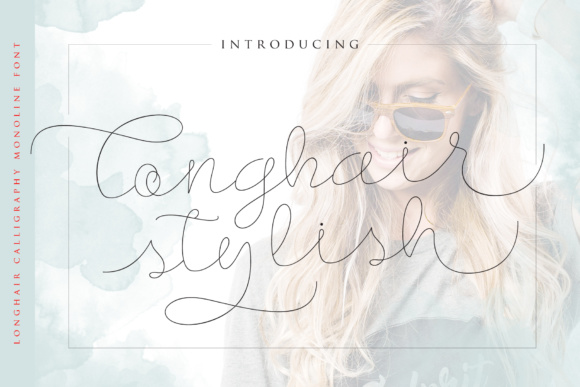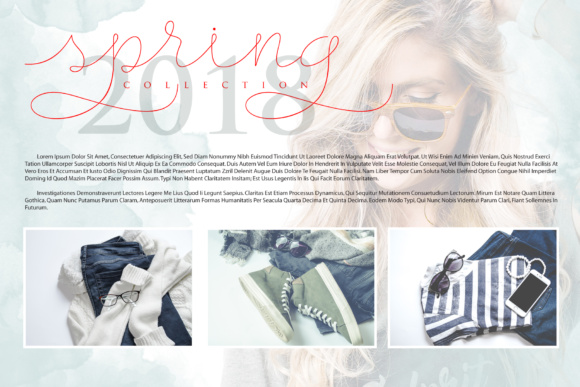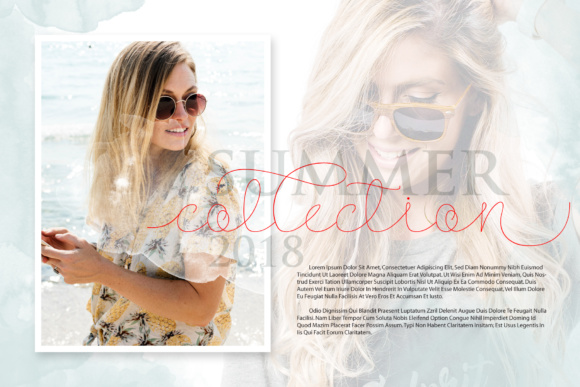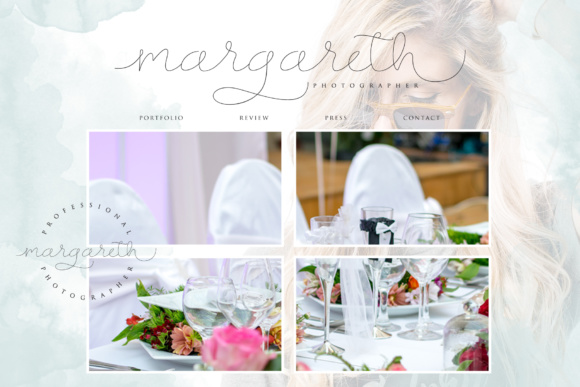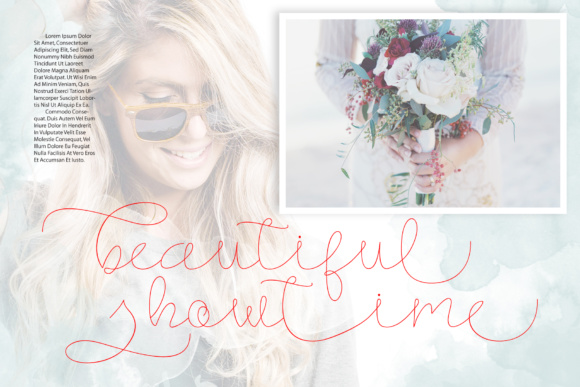
Longhair Font
About Longhair Font
For those of you who need a touch of elegance and modernity in your designs, Longhair-Monoline Script Font is just what you’re looking for!